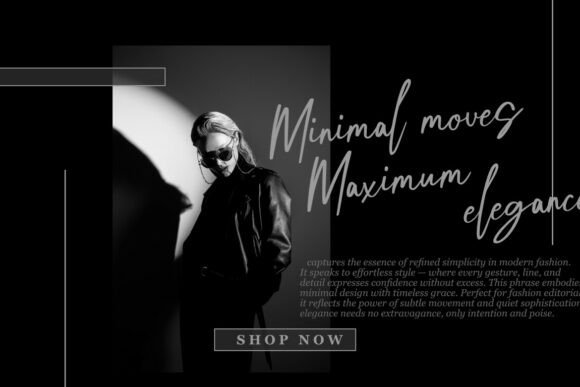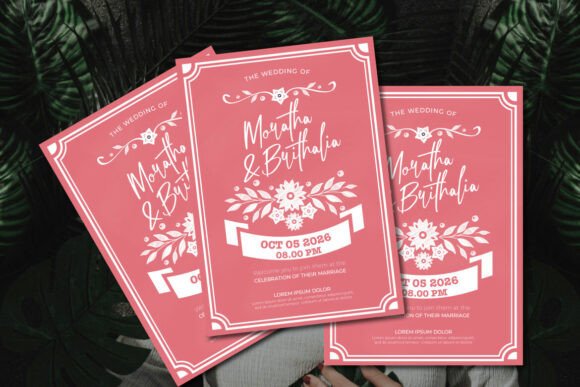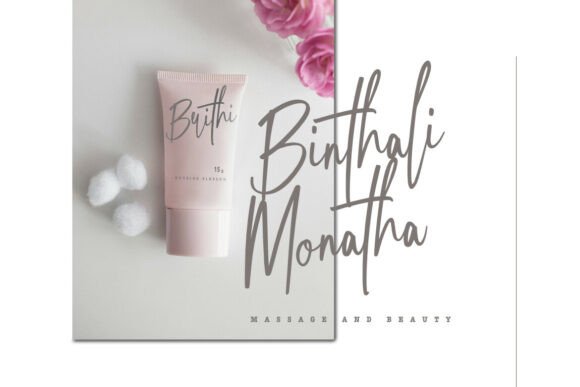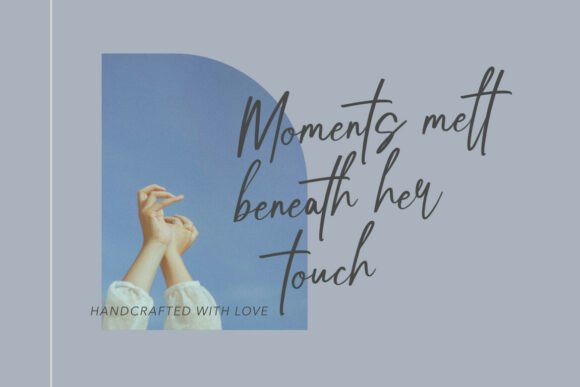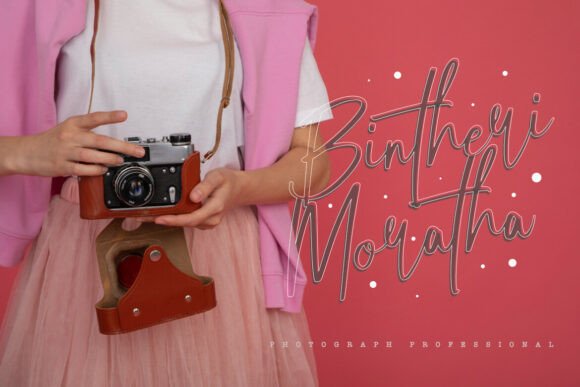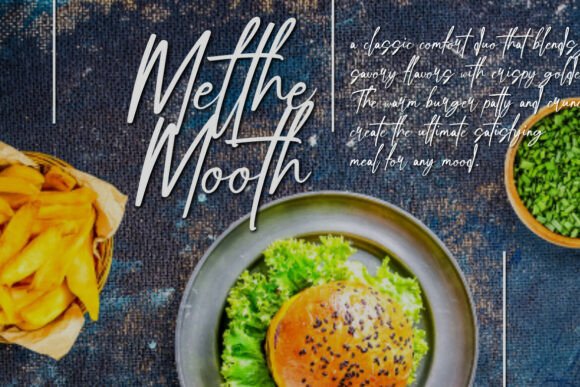
Unleash the Artistry of Your Words with Brithalia Font
As you sit down to create, do you ever feel like your words need a touch of magic to truly shine? Maybe it’s the perfect script to capture a special moment, or the elegant flourish to elevate your brand’s identity. Whatever your creative vision, the Brithalia Font is here to help you bring it to life.
This exquisite brush signature font is designed to capture the essence of sophisticated, swift handwriting with an authentic, textured flow. With its beautiful dry-brush texture and varying pressure of a real brush stroke, the Brithalia Font adds a raw yet elegant feel to your designs. Whether you’re a designer, artist, or simply someone who loves to create, this font is a valuable addition to your toolkit.
Brithalia Font Key Features
- Unique Characteristics: The font features a unique blend of modern and classic elements, with subtle texture and intricate details that add a touch of sophistication to any design.
Designer Review: Brithalia Font
I recently had the chance to work with Brithalia Font, and I must say it’s a unique and captivating addition to any design project. ✨
Here are some aspects that truly shine:
- The Brithalia Font is ideal for titles and headings due to its elegant, yet bold characteristics.
- The font’s versatility makes it suitable for a wide range of design applications, from digital to print media.
- Its intricate details and unique lines make it an excellent choice for designers seeking something distinct.
However, I do have some concerns:
- Brithalia Font may be a bit difficult to read in smaller font sizes, which could impact readability.
- Some users may find the font too ornate or overpowering, especially in simple designs.
Overall, I’d say Brithalia Font is a great choice for designers looking to add some personality to their projects. While it may have some limitations, its unique charm and versatility make it a worthwhile consideration.
Alternatives to Brithalia Font
Playfair Display is a luxurious and elegant serif font ideal for titles, headings, and magazine covers. It’s perfect for projects requiring sophistication and a touch of classic charm.
Comparison to Brithalia Font: While Brithalia Font has a more modern feel, Playfair Display offers a traditional and refined look that is ideal for high-end branding and advertising.
Montserrat is a modern sans-serif font designed for digital use. It’s highly legible and versatile, making it suitable for a wide range of applications, from body text to headlines.
Comparison to Brithalia Font: Montserrat is more geometric and urban in feel, whereas Brithalia Font has a softer, more rounded appearance. Montserrat is ideal for tech, fashion, and lifestyle projects.